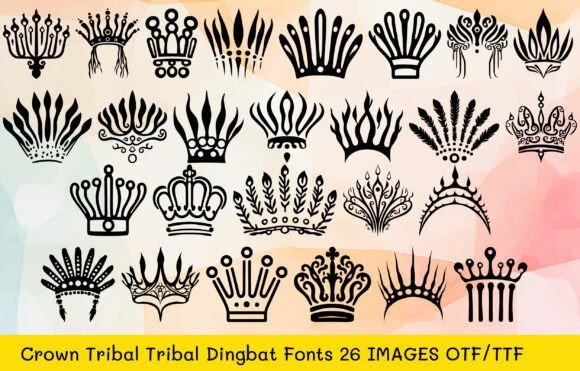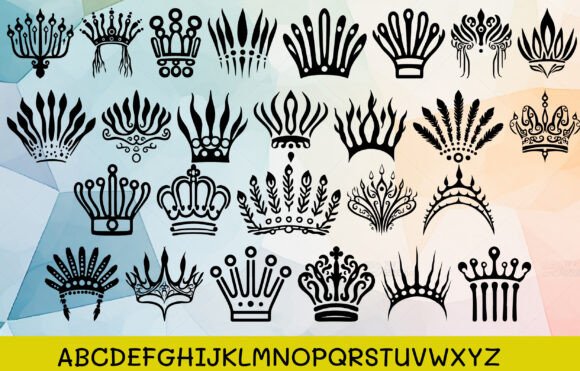
The Crown Tribal Font: A Creative’s Dream Come True
Remember the moment when you stumbled upon the perfect font, and your entire design project came together in a flash of inspiration? That’s exactly what the Crown Tribal Font aims to deliver – a unique and captivating visual language that elevates your creative expression.
Comprising 26 distinct designs, each paired with a letter from A to Z, the Crown Tribal Font is a treasure trove of creative possibilities. Whether you’re crafting intricate logos, designing eye-catching decorations, or simply seeking to add a touch of whimsy to your text, this font set is sure to spark your imagination. By including both OTF and TTF formats, designers can seamlessly integrate the Crown Tribal Font into their workflow, unleashing its full potential.
- Unique Characteristics: Distinctive tribal-inspired design, intricate details, and a touch of elegance, making it suitable for various design projects, including logos, packaging, and editorial content
Crown Tribal Font Review
I’ve had the chance to work with the Crown Tribal Font, and I must say it’s an interesting choice. ✨ Here are some things that work well:
- Unique aesthetic: Crown Tribal Font has a distinct, tribal-inspired look that can add a touch of cultural flair to any design.
- Expressive versatility: The font is available in a range of weights, from light to bold, making it suitable for various design applications.
- Good for headings: Crown Tribal Font is particularly effective for use as headings or titles due to its bold, eye-catching nature.
- Readability: The font can be difficult to read, especially in smaller sizes or when used for large blocks of text.
- Lack of consistency: Some users may find the font’s inconsistent letterforms and irregular spacing to be jarring.
- Not ideal for body text: Due to its unique style and potential readability issues, Crown Tribal Font may not be the best choice for body text or lengthy passages.
Overall, Crown Tribal Font is a great option for designers who want to add a bold, cultural touch to their designs, but it may not be suitable for every project. Use it sparingly and thoughtfully to get the most out of this unique font.
Getting the Most Out of the Crown Tribal Font
To get the most out of the Crown Tribal font, try using it in bold or italic styles to add emphasis. You can also use it in combination with other fonts to create a unique and eye-catching design.
The Crown Tribal font is perfect for:
- Cultural or tribal-themed designs.
- Native American-inspired artwork.
- Boho-chic or eclectic designs.
Alternatives to Crown Tribal Font
Great Vibes is a beautiful, hand-drawn script font with a bohemian and vintage feel. It’s perfect for creating a unique and eye-catching design for headings, quotes, or titles. Great Vibes is more elegant and refined compared to Crown Tribal Font, making it ideal for luxury brands or high-end products.
Rodeo Drive
Rodeo Drive is a modern script font with a touch of sophistication and glamour. It’s great for creating a luxurious and high-end feel for your designs. Compared to Crown Tribal Font, Rodeo Drive is more refined and less rustic, making it suitable for brands that want to convey a sense of exclusivity and elegance.
Playfair Display is a luxurious, high-end serif font with a vintage feel. It’s perfect for creating a sense of sophistication and elegance for your designs. Playfair Display is more formal and less playful compared to Crown Tribal Font, making it ideal for luxury brands, high-end products, or formal invitations.